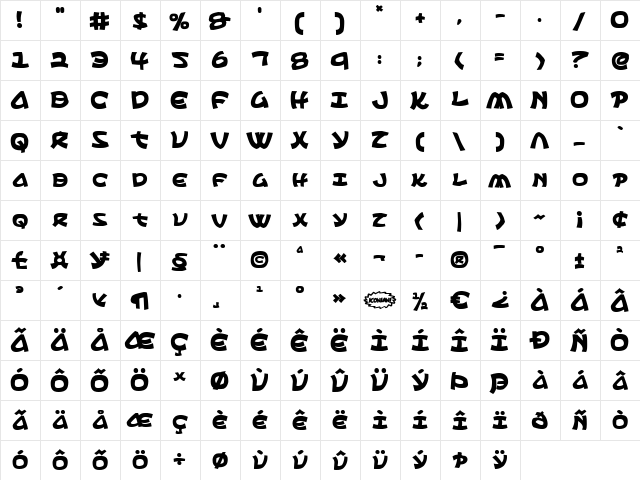
Ephesian Bold Bold
Design Context for Ephesian Bold Typeface
Ephesian Bold is a composed and adaptable typeface that performs quietly and consistently across a wide range of design contexts. Its bold stroke weight gives it real presence on the page.